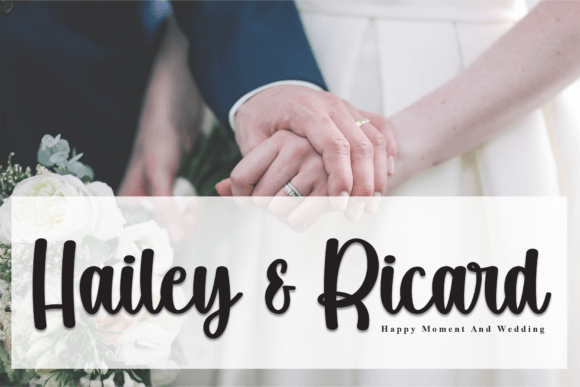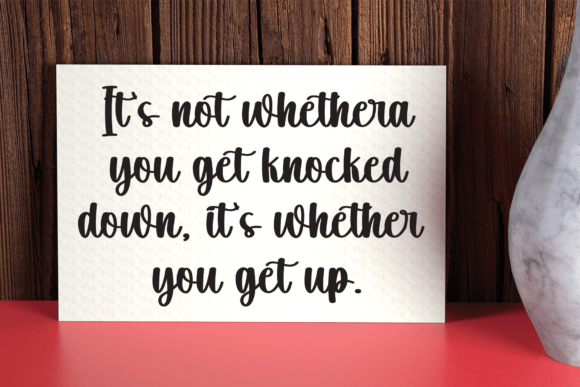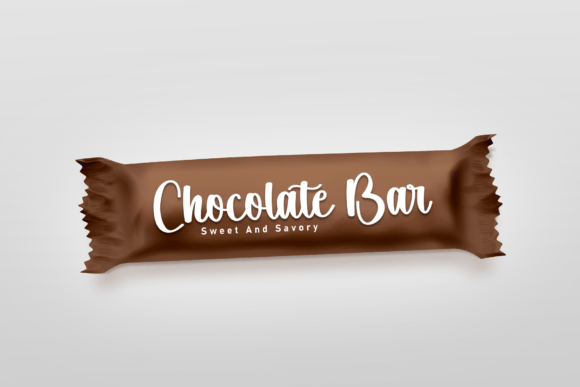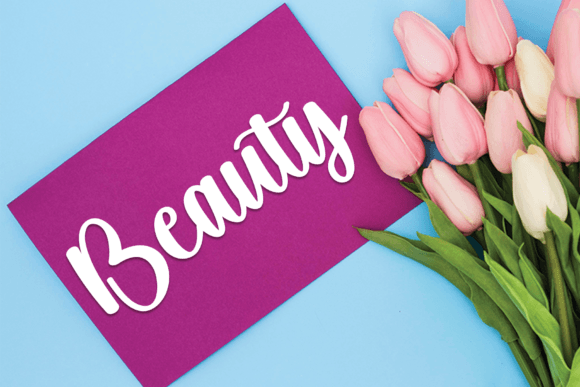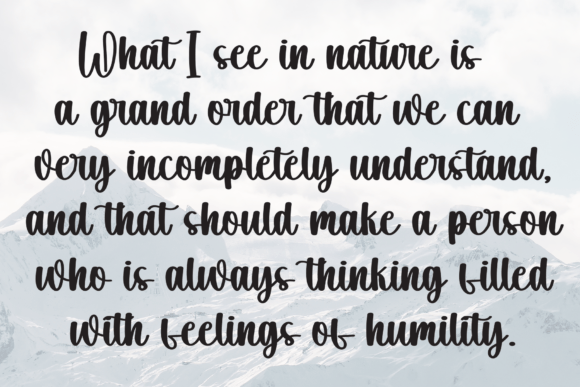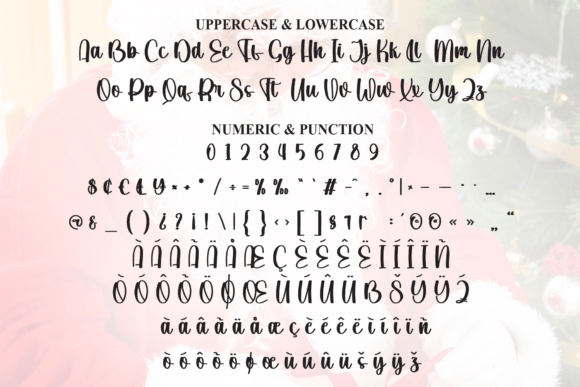
Elegant Santa Font: Add a Touch of Festive Charm to Your Designs
Are you looking for a font that can add a touch of festive charm to your designs? Look no further than the Elegant Santa font. This stylish, bold handwritten font is perfect for designers and crafters who want to create holiday-themed projects that stand out from the crowd. With its elegant curves and strong lines, Elegant Santa is sure to bring a cheerful, holiday flair to your text.
What Makes Elegant Santa Font So Special?
Elegant Santa font is a unique and stylish addition to any design project. Its bold, handwritten lines give it a personal and festive feel that’s perfect for holiday-themed projects. The font’s elegant curves and strong lines make it easy to read and add a touch of sophistication to your designs. Whether you’re creating holiday cards, gift tags, or social media graphics, Elegant Santa font is sure to make your text stand out.
Features of Elegant Santa Font
- Stylish and Bold: Elegant Santa font is a bold and stylish handwritten font that’s perfect for making a statement.
- Elegant Curves: The font’s elegant curves give it a sophisticated and refined feel that’s perfect for holiday-themed projects.
- Strong Lines: The font’s strong lines make it easy to read and add a touch of boldness to your designs.
- Festive Charm: Elegant Santa font has a festive charm that’s perfect for holiday-themed projects.
- Versatile: The font is versatile and can be used for a variety of design projects, including holiday cards, gift tags, social media graphics, and more.
Uses of Elegant Santa Font
Elegant Santa font is perfect for a variety of design projects, including:
- Holiday Cards: Add a touch of festive charm to your holiday cards with Elegant Santa font.
- Gift Tags: Create personalized gift tags with Elegant Santa font that’s sure to make your gifts stand out.
- Social Media Graphics: Add a touch of holiday cheer to your social media graphics with Elegant Santa font.
- Logos and Branding: Use Elegant Santa font to create a festive and memorable logo or branding for your business.
- Party Decorations: Create festive party decorations, such as banners and garlands, with Elegant Santa font.
Tips for Using Elegant Santa Font
Here are some tips for using Elegant Santa font in your design projects:
- Pair with Other Fonts: Pair Elegant Santa font with other fonts to create a unique and interesting contrast.
- Use in Large Sizes: Use Elegant Santa font in large sizes to make a bold statement.
- Add Decorations: Add decorations, such as holly or snowflakes, to your text to give it a festive touch.
Elegant Santa font is a stylish and bold handwritten font that’s perfect for adding a touch of festive charm to your designs. With its elegant curves and strong lines, Elegant Santa font is sure to make your text stand out with a cheerful, holiday flair. Whether you’re a designer or crafter, Elegant Santa font is a great addition to your font collection.